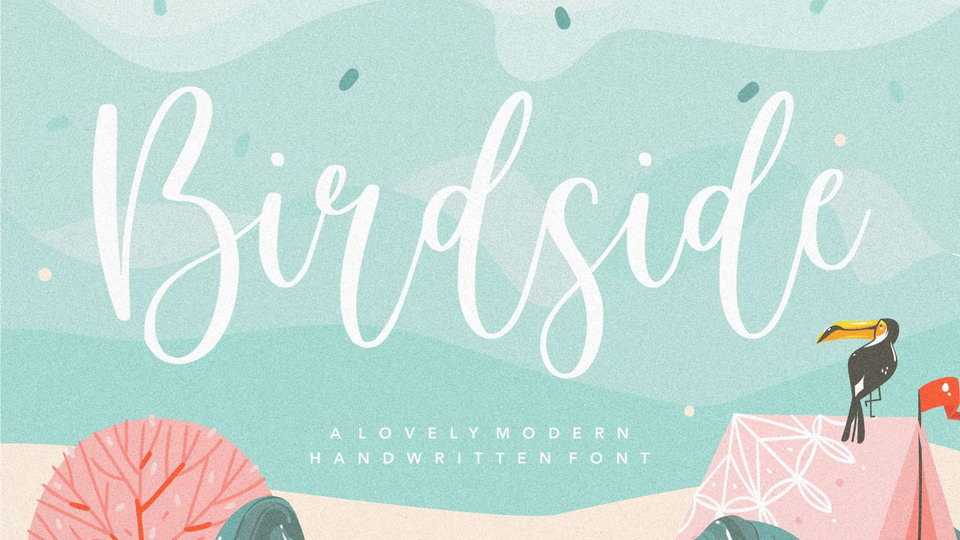
Download Birdside font, a lovely modern handwritten typeface with bouncy flow. Birdside is perfect for product packaging, branding project, magazine, social media, wedding, or just used to express words above the background.
Designer: Balpirick Studio